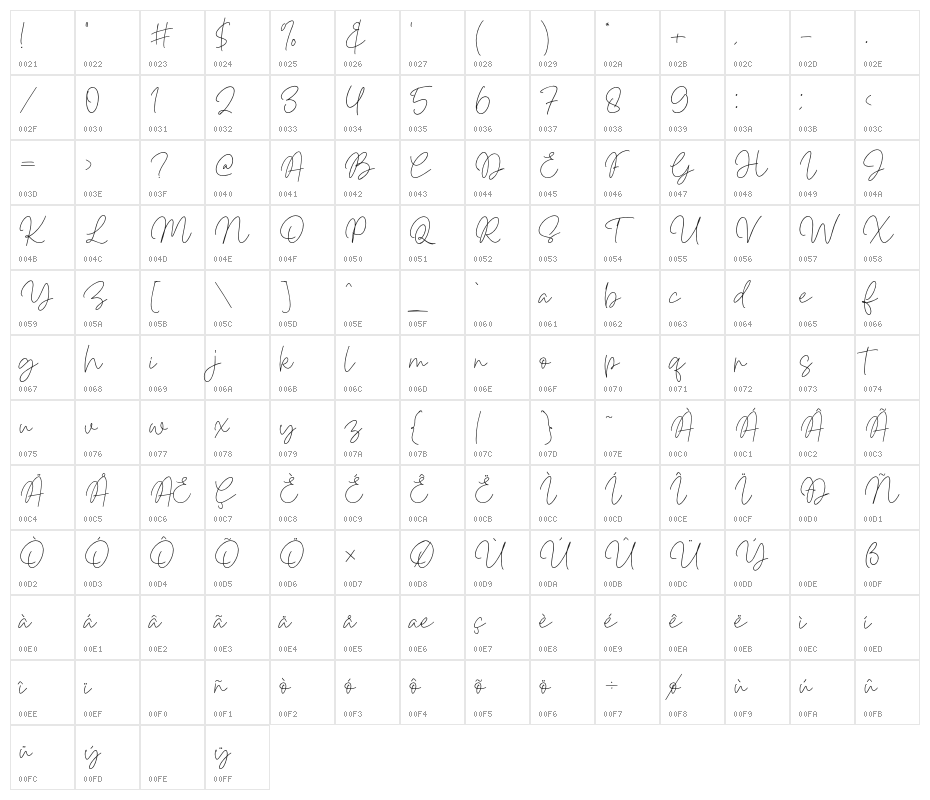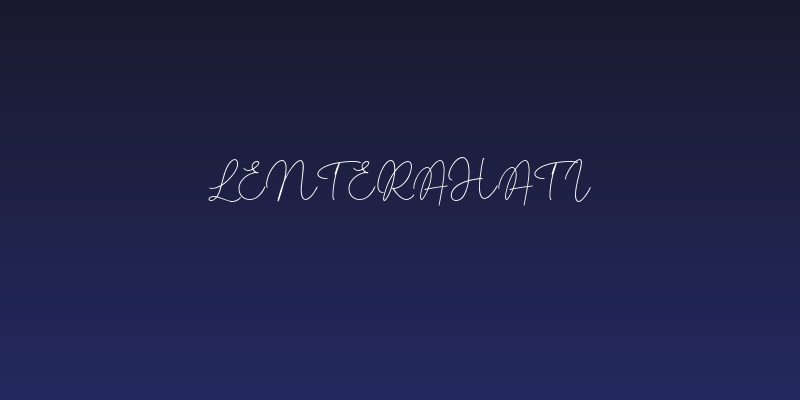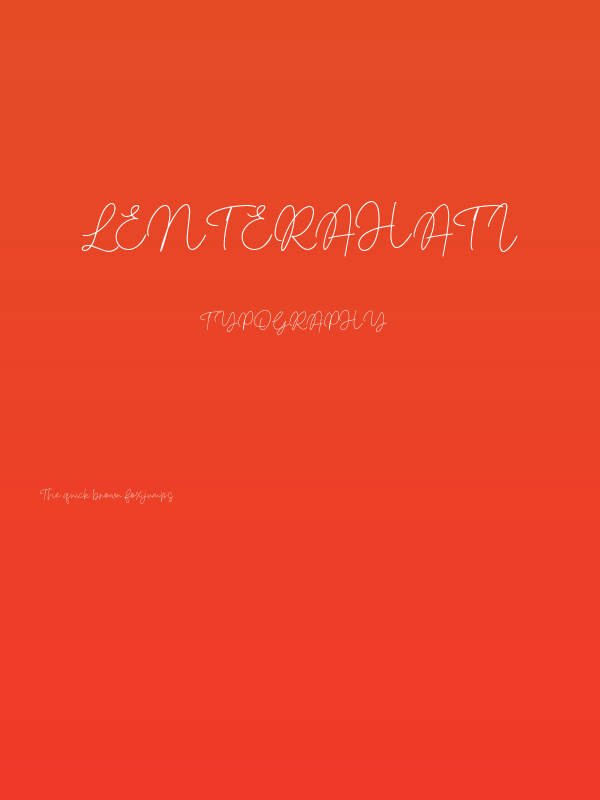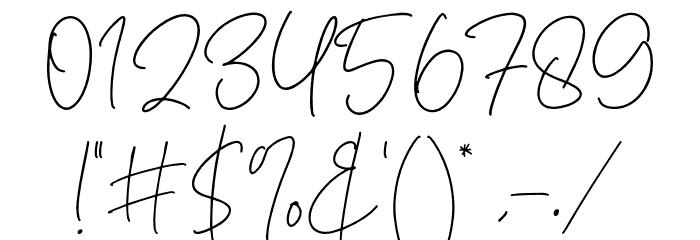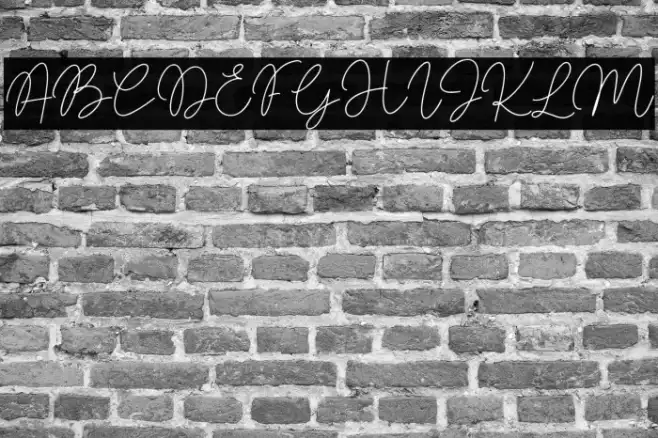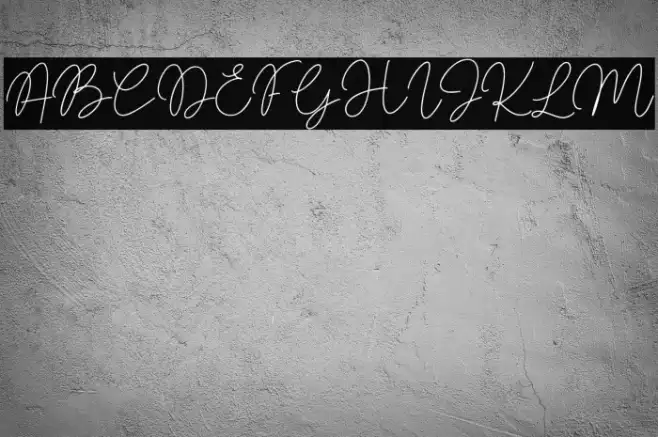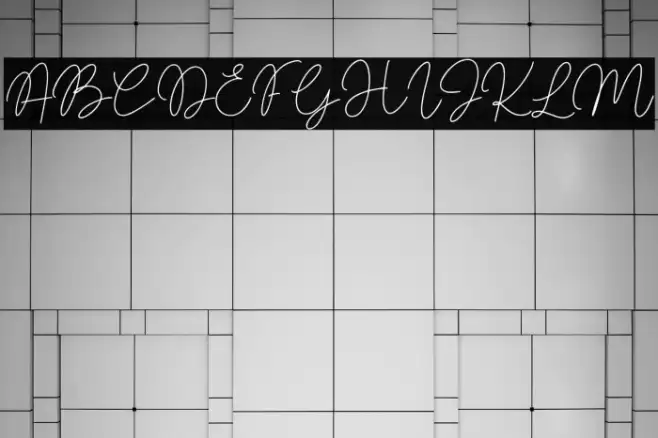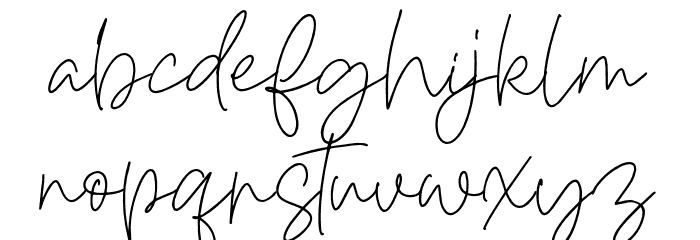
LenteraHati Font
LenteraHati Description
This font features a delicate and flowing script style, characterized by its elegant and continuous strokes that mimic natural handwriting. The uppercase letters are gracefully connected, while the lowercase letters maintain a consistent and fluid motion, enhancing the handwritten feel. The numerals and special characters are crafted with the same attention to detail, ensuring a cohesive appearance throughout. This font's airy and light design makes it suitable for projects that require a personal touch, such as invitations, greeting cards, or branding materials.